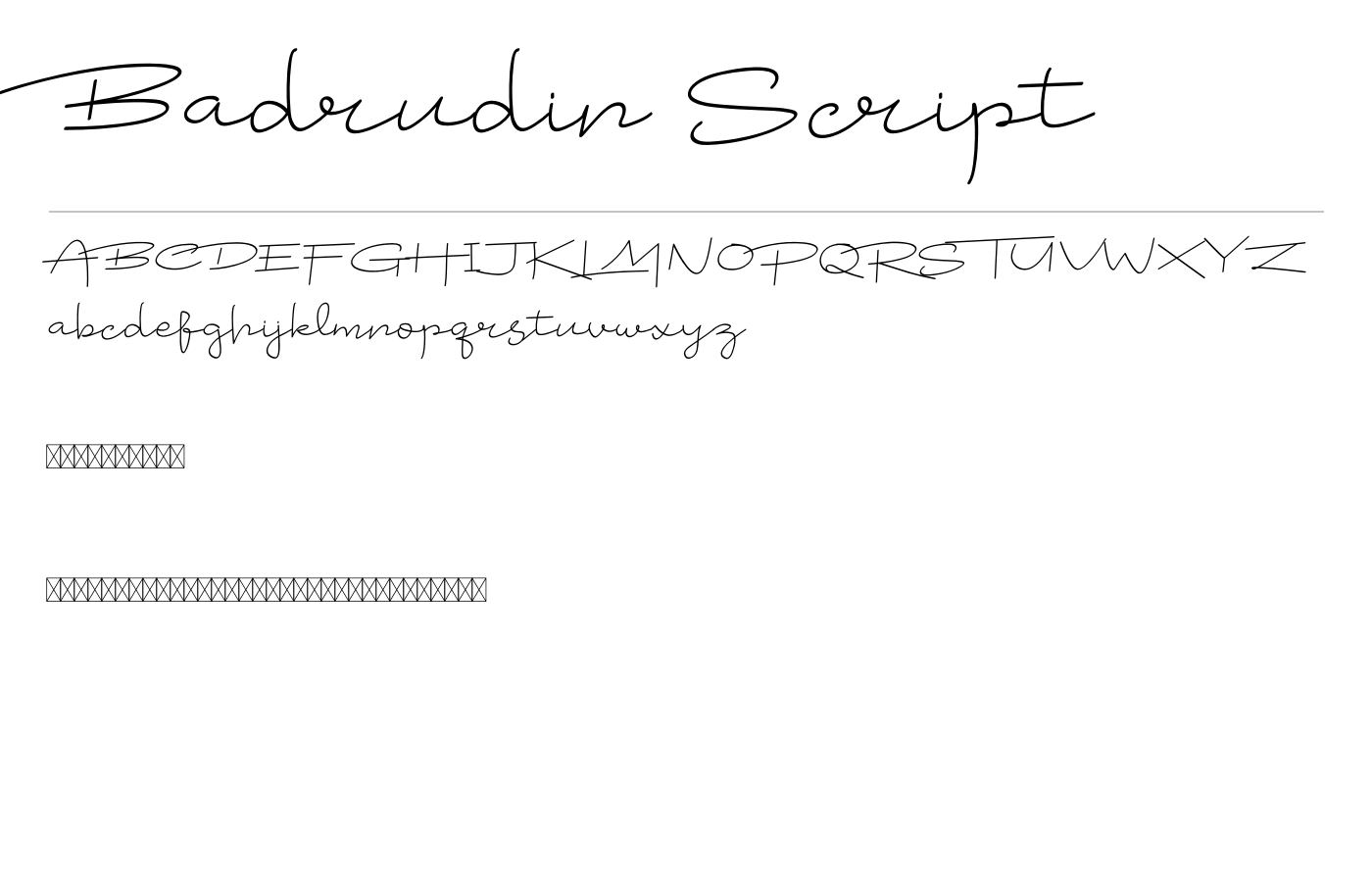
Badrudin Script is a delicate, handwritten font featuring thin, elegant strokes with a natural, flowing style. Its tall x-height and slender letterforms give it a refined, airy feel, making it perfect for adding a personal, sophisticated touch to invitations, branding, and editorial designs. This font’s graceful character works well in contexts where a light, charming, and stylish appearance is desired.
Badrudin Font
About Badrudin Font
| Designer | Joko Triwijayanto |